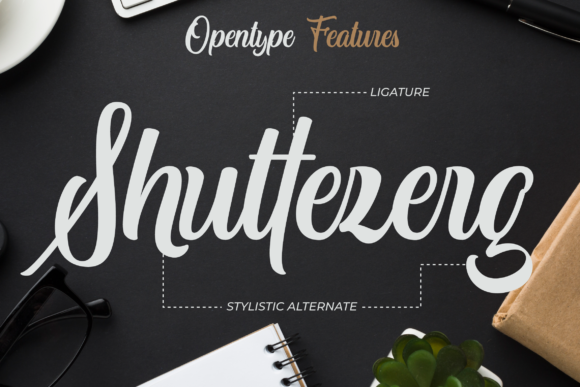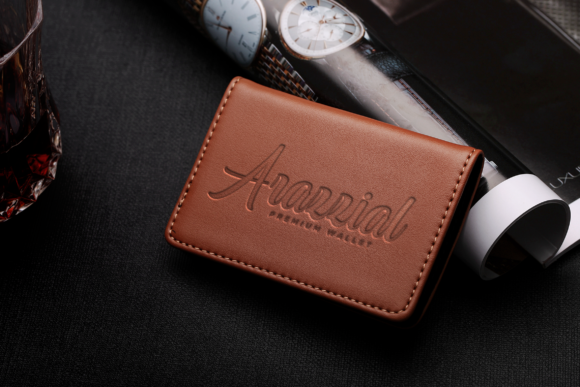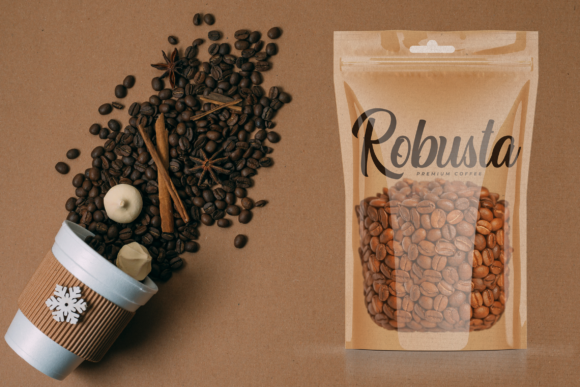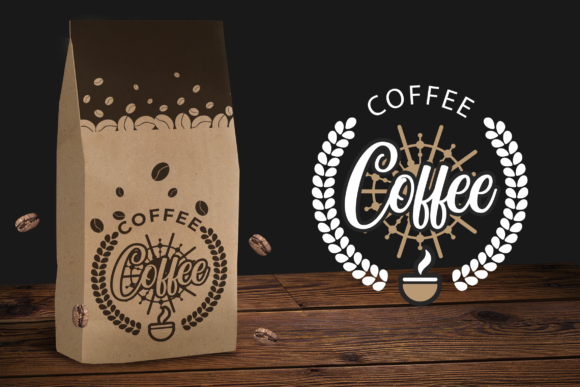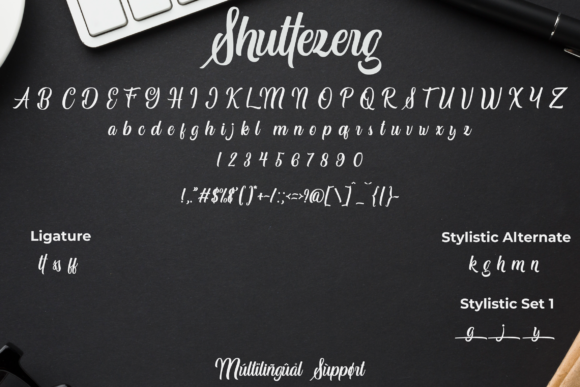
Introduction to Shuttezerg Font
As a designer, have you ever been stuck on a creative project, desperately searching for that perfect font to bring your vision to life? I’m sure we’ve all been there. But what if I told you that I’ve discovered a game-changing script font that will elevate your designs to the next level? Meet the Shuttezerg Font, a high-quality design resource that’s sure to add a touch of whimsy to any project.
With its unique and playful charm, the Shuttezerg Font is a must-have for any designer looking to add some personality to their work. Whether you’re working on a creative project with a transparent background or a design that requires a free download, this font is the perfect addition to your toolkit. Its versatility and charm make it an invaluable resource for designers of all levels.
Key Features of Shuttezerg Font
- The Shuttezerg Font is a high-quality design resource ideal for creative projects, offering a unique and stylish aesthetic.
- This font features a transparent background, allowing for seamless integration with various design elements.
- This font is designed to work well at various font sizes, from 12 to 72 points, allowing for flexibility in creative projects.
- Shuttezerg Font’s unique characteristics, such as its bold and modern design, make it an excellent choice for designers seeking a distinctive look.
Honest Review: Shuttezerg Font
I recently stumbled upon the Shuttezerg Font, and I must say it’s been a game-changer for my creative projects. As a designer, I’m always on the lookout for high-quality fonts that can elevate my work. The Shuttezerg Font delivers on this front, offering a sleek and modern design that’s perfect for a variety of applications.
One of the things that stands out about the Shuttezerg Font is its versatility. It works well in a range of creative projects, from logos and branding to digital displays and print materials. The font’s clean lines and simple design make it easy to read and understand, even on smaller screens.
Here are some of the things that work well about the Shuttezerg Font:
- ✨ Transparent background, making it easy to customize and integrate into designs
However, I do have a few reservations about the Shuttezerg Font:
- ⚠️ Limited font weights, which may not be suitable for all design applications
- ⚠️ Not ideal for projects that require a more ornate or elaborate font
Overall, I’m impressed with the Shuttezerg Font and would highly recommend it to designers and non-designers alike. Its high-quality design and versatility make it a valuable addition to any design resource library.
To get the most out of Shuttezerg Font, use it in combination with other design elements, such as graphics and textures. Experiment with different font sizes, colors, and styles to create a unique look.
Shuttezerg Font is ideal for:
Logos and branding materials
Print materials, such as business cards and brochures
Digital materials, such as social media graphics and website design